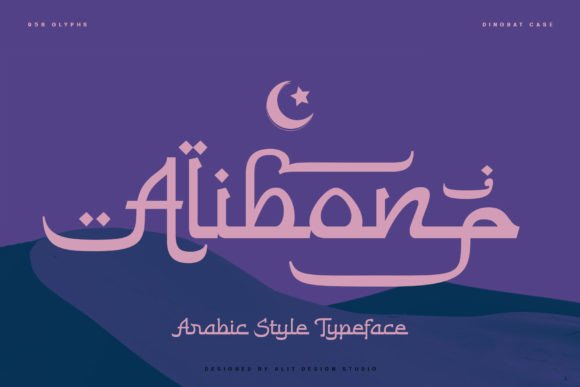
The Quest for the Perfect Arabic Font: Discovering Alibon
I’ll never forget the rush of working on a Ramadan promotion project for a client. The deadline was looming, and I was struggling to find the right font that would capture the essence of the holy month. The client wanted something that exuded elegance, spirituality, and a touch of modernity. I scoured the internet, tried out countless fonts, but nothing seemed quite right. That was until I stumbled upon Alibon Arabic typeface. ✨
An Honest Review of Alibon Arabic Font
- ✅ Stunning Islamic Style: Alibon Arabic font boasts a beautiful, intricate design that screams elegance and sophistication.
- ✅ PUA Encoded: The font’s PUA encoding means I can access all glyphs and swashes effortlessly, making it a breeze to work with.
- ✅ Perfect for Ramadan Promotions: The font’s religious and Islamic style makes it an ideal choice for Ramadan promotions, Islamic design projects, and more.
- ✅ Highly Versatile: Alibon Arabic font can be used for a wide range of design projects, from print materials to digital graphics.
While Alibon Arabic font is an excellent choice, there are a few minor quirks to be aware of: ⚠️
- 🤔 Requires OpenType Support: To access all the font’s features, you’ll need to use a design platform that supports OpenType.
- 🤔 Some Swashes May Not Work in All Platforms: A few swashes and glyphs might not work properly in certain design platforms, so be sure to test them thoroughly.
The Story Behind Alibon Arabic Font
Alibon Arabic font was designed with the goal of creating a beautiful, elegant font that captures the essence of Islamic art and culture. The font’s creator drew inspiration from traditional Arabic calligraphy and ornate Islamic patterns to craft a unique and stunning typeface.
PUA (Private Use Area) encoding allows font creators to include additional characters, swashes, and glyphs that aren’t part of the standard Unicode character set. This means that users can access a wider range of design elements and create more complex, ornate designs.
Q: Is Alibon Arabic font suitable for body text?
While Alibon Arabic font is beautiful and elegant, it may not be the best choice for body text. The font’s intricate design and ornate features make it more suitable for headlines, titles, and decorative text.